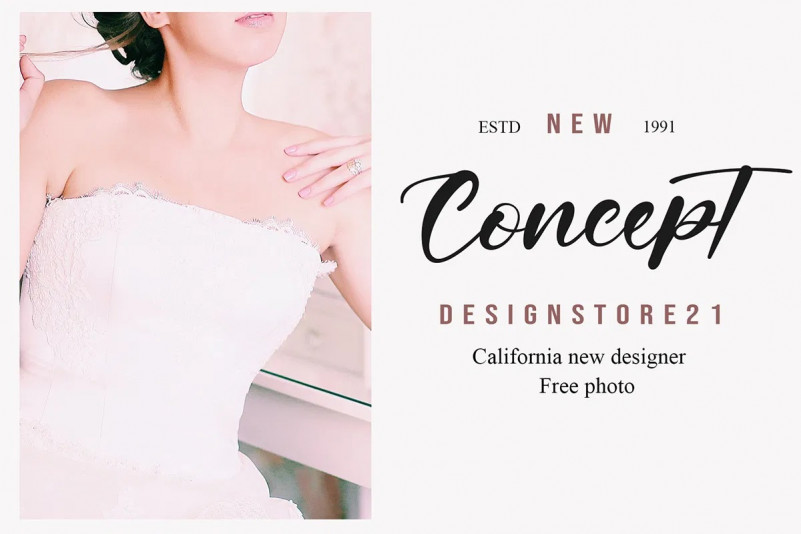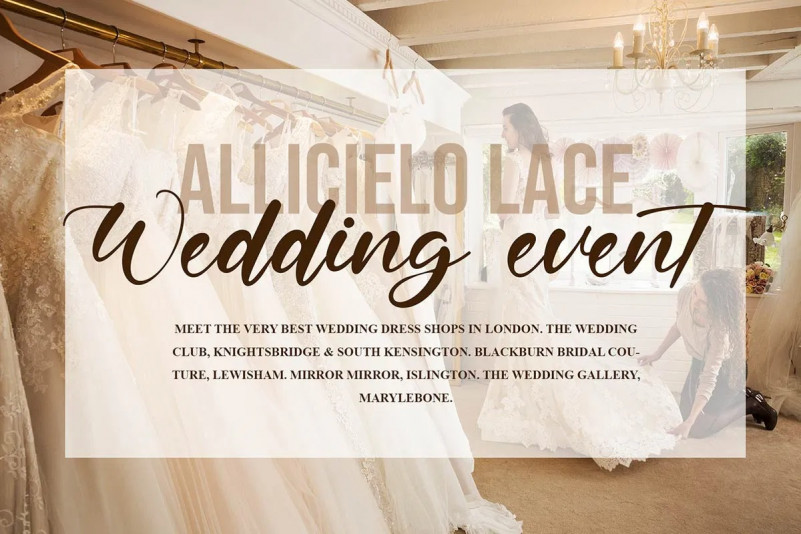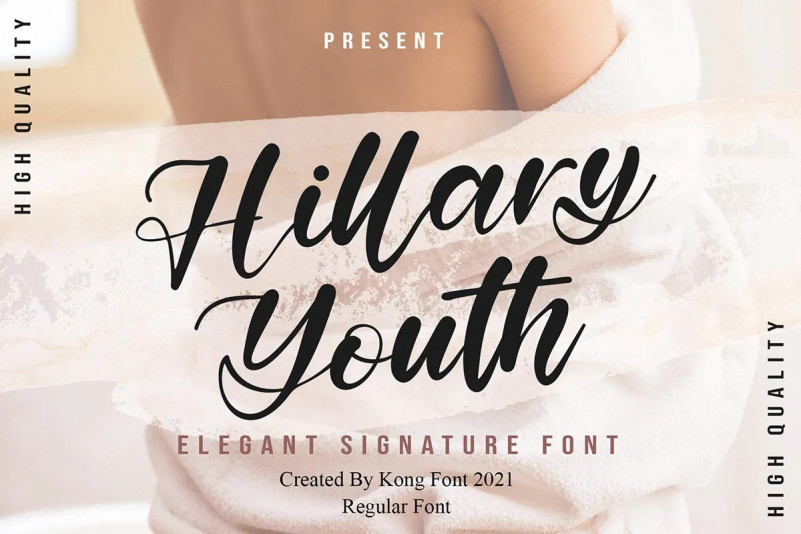
Hillary Youth Script Font
Introducing our New Font, very suitable as to make adorable invitation for wedding, birthday, special day. A collection of letters and numbers suitable your projects also great for Logotype, Branding Design, Logo Design, Digital Lettering Arts, T-Shirt/Apparel, Poster, Magazine, Signs, Advertising Design, and also perfect for your other projects branding.